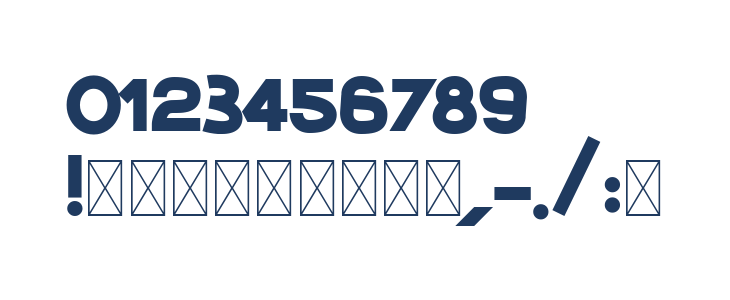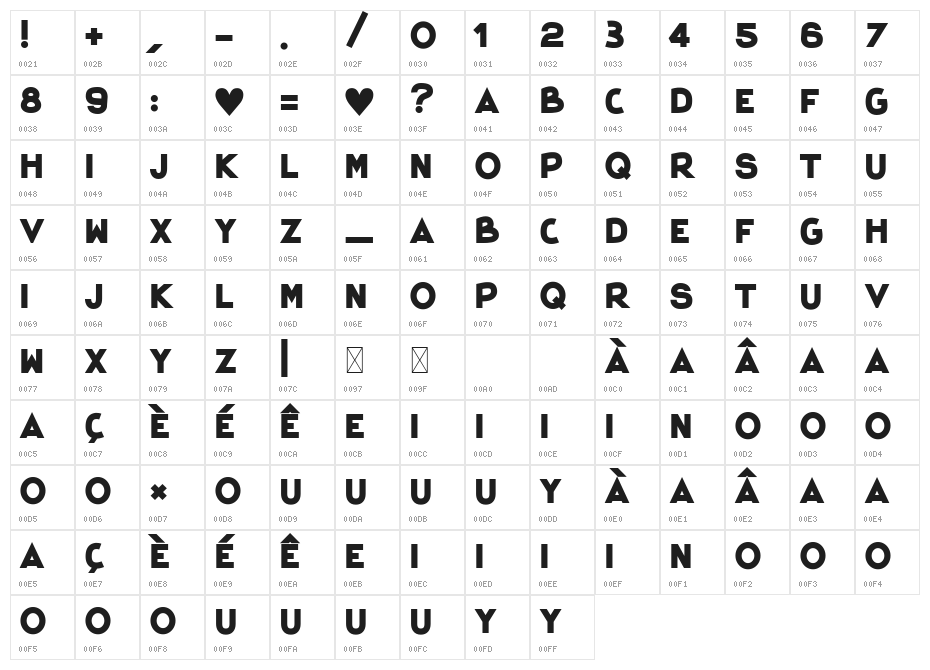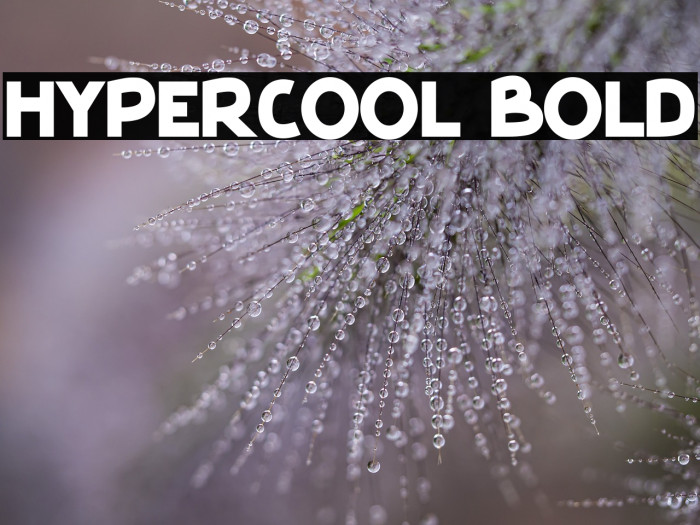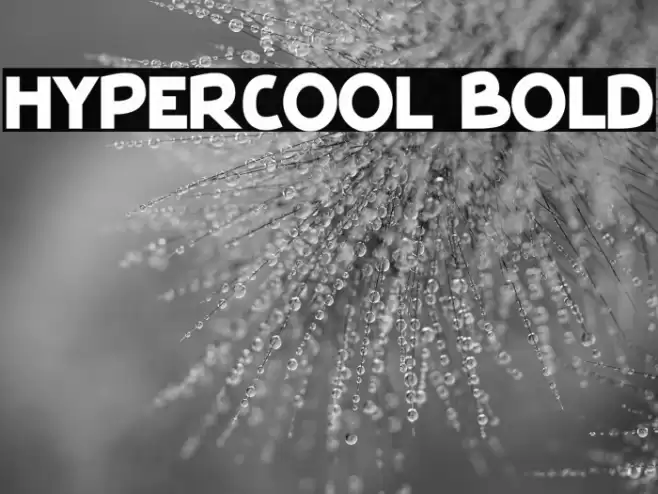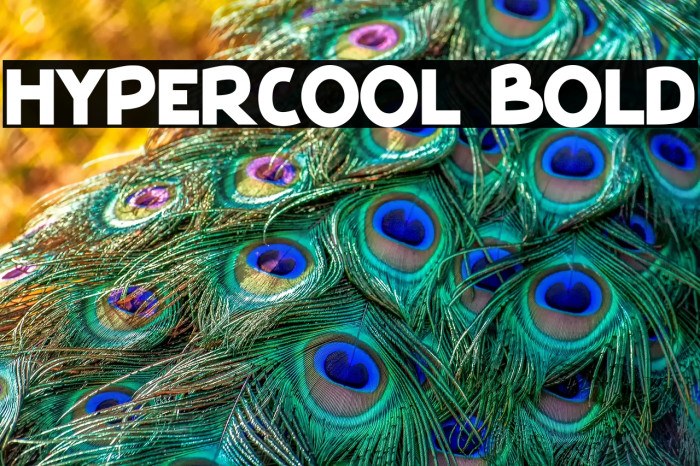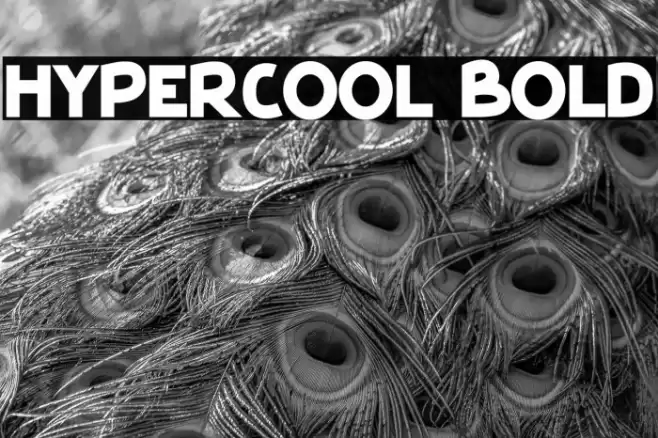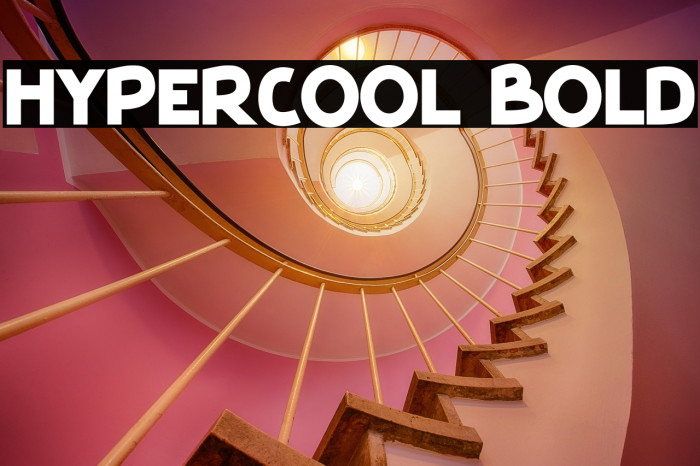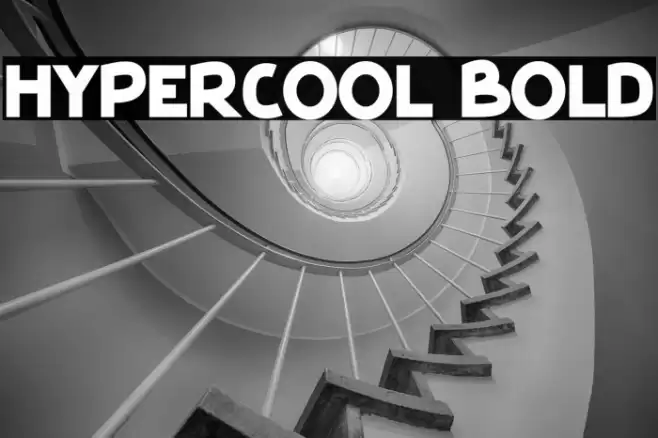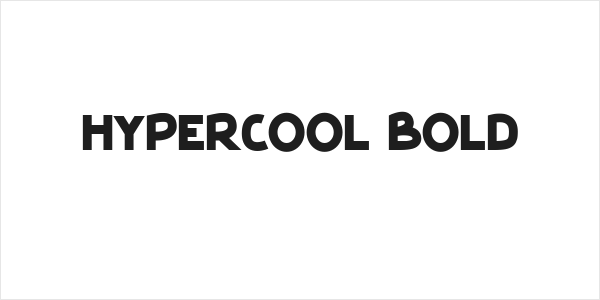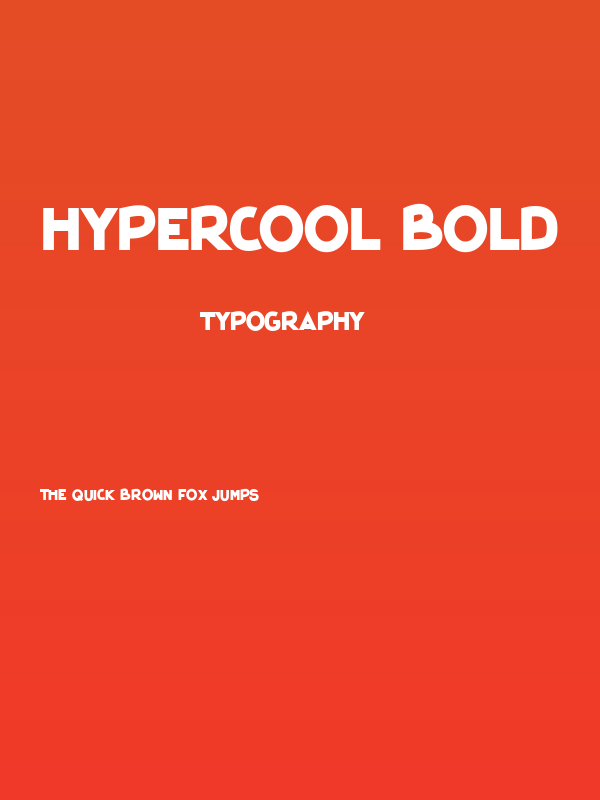
HyperCool Bold Font
HyperCool Bold Description
This font features a bold and impactful design, characterized by thick, uniform strokes that convey strength and modernity. The uppercase and lowercase letters are crafted with a geometric precision, offering a sense of balance and stability. The numbers and special characters maintain this robust aesthetic, ensuring consistency across all elements. The overall appearance is clean and straightforward, making it suitable for a variety of applications where clarity and emphasis are paramount. The font's bold nature and strong presence make it ideal for headlines, posters, and branding materials that require a commanding visual impact.